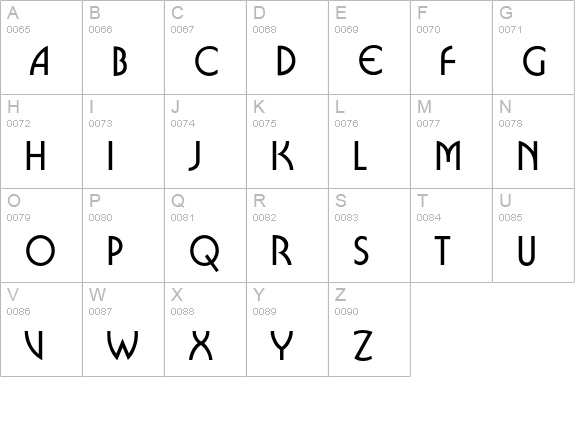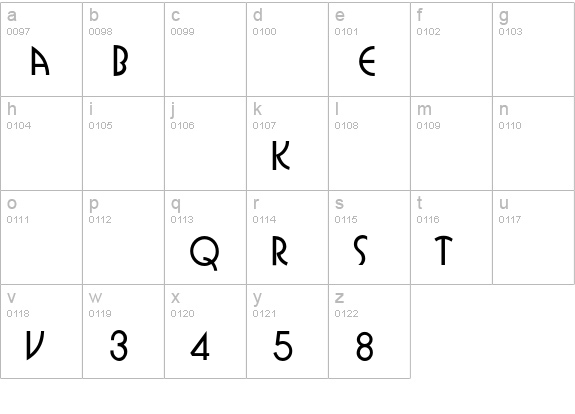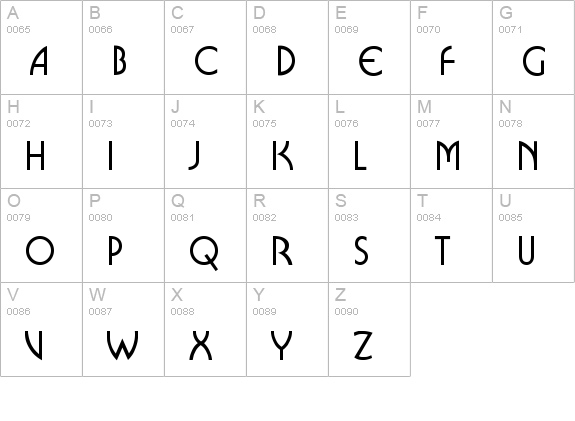
Epiphon Font Details
Epiphon font is a modern and stylish typeface that exudes sophistication and elegance. With its sleek lines and clean curves, Epiphon is perfect for a wide range of design projects, from branding to editorial layouts. This versatile font effortlessly combines classic elements with a contemporary twist, making it a standout choice for any creative endeavor. What's even better is that Epiphon font is completely free to download at FontsMarket.com. Yes, you read that right - this high-quality typeface is available at no cost, allowing you to enhance your designs without breaking the bank. So why wait? Elevate your projects with the timeless charm of Epiphon font today!